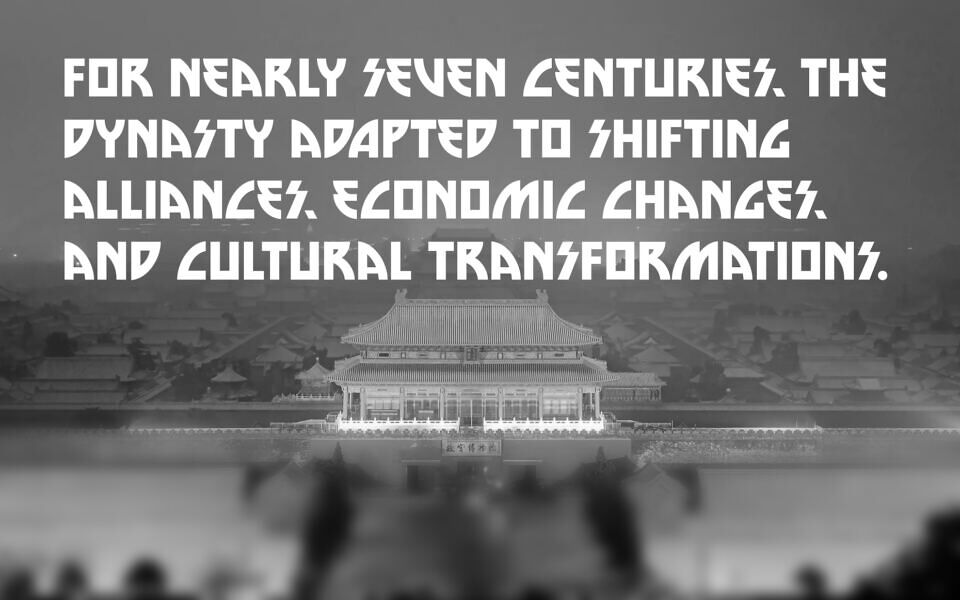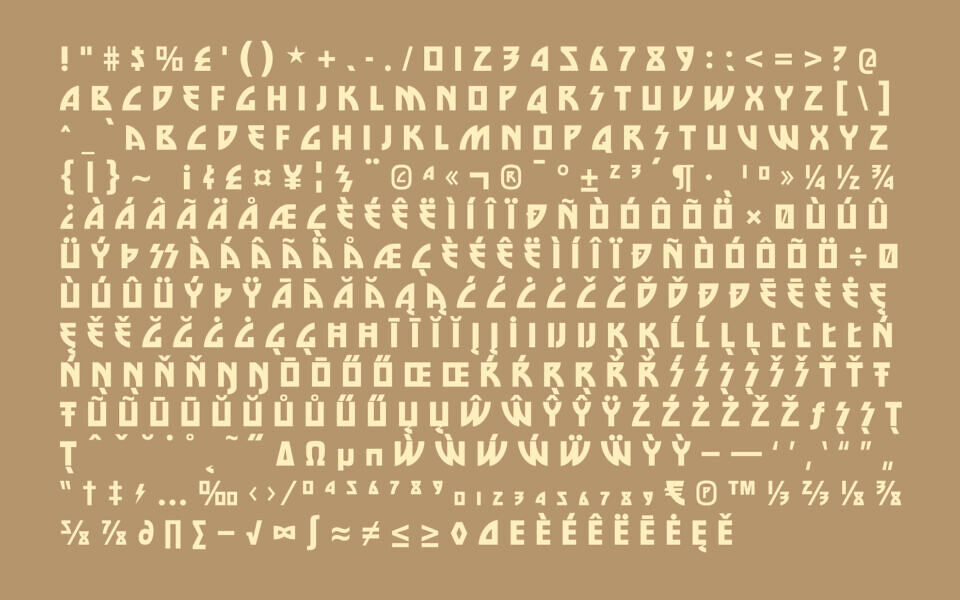
Die Nasty Font
Die Nasty is a striking, glitzy headline typeface created by Typodermic Fonts that blends Arts & Crafts aesthetics with a glam rock attitude. Inspired by the iconic Kiss insignia, it features unique variant forms for select letters that adapt to their context.
Due to its sharp, lightning-bolt style, the designer advises using the font with discretion, particularly regarding specific character combinations. A, M, V, and W all have variant forms that automatically appear in different contexts. Turn off the ligatures feature in your application to disable this feature.